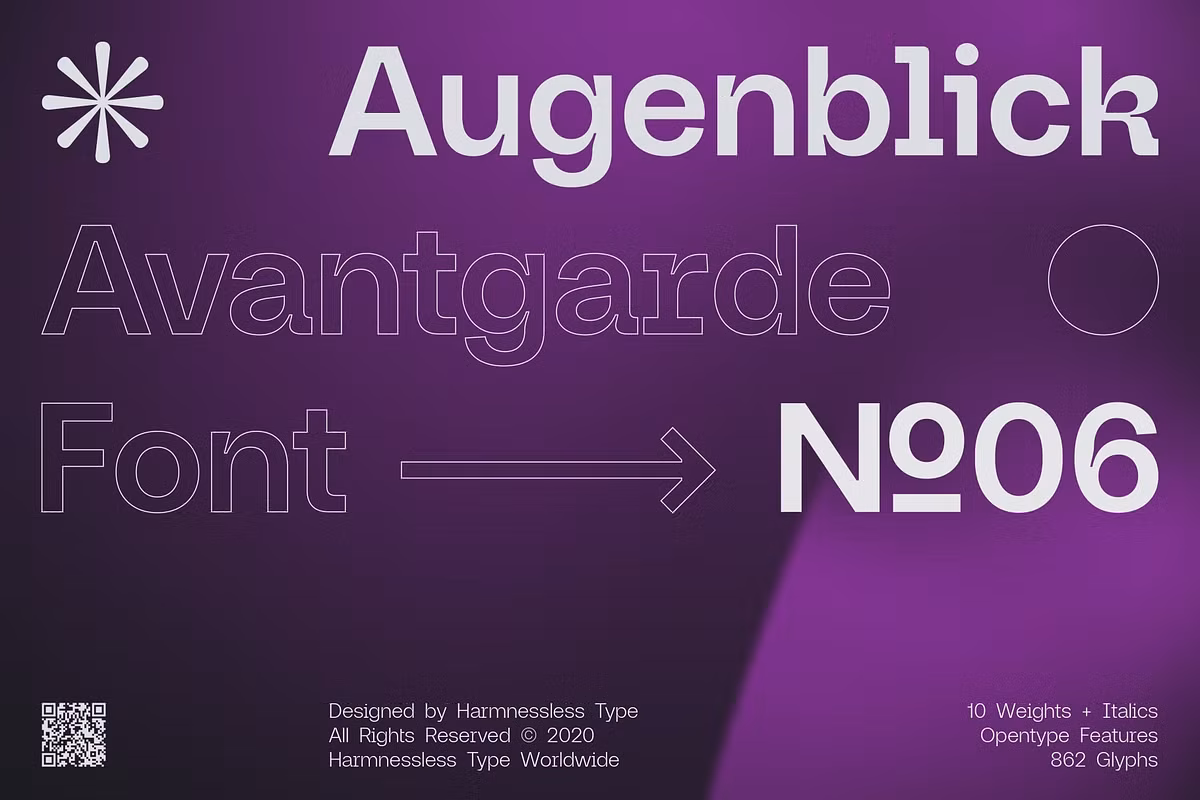
Neue-Augenblick Family Free Download is a modern and expressive sans serif typeface family known for its geometric precision and minimalist sophistication. With 90% off, this professional-grade font family becomes an incredible value for designers looking to enhance their typography arsenal. It’s ideal for branding, web design, editorial layouts, packaging, and professional presentations.
The Neue-Augenblick Family Free Download includes multiple weights and styles, offering excellent versatility for building strong typographic hierarchies. Its clean lines and smooth letterforms bring clarity and elegance to both print and digital design projects.